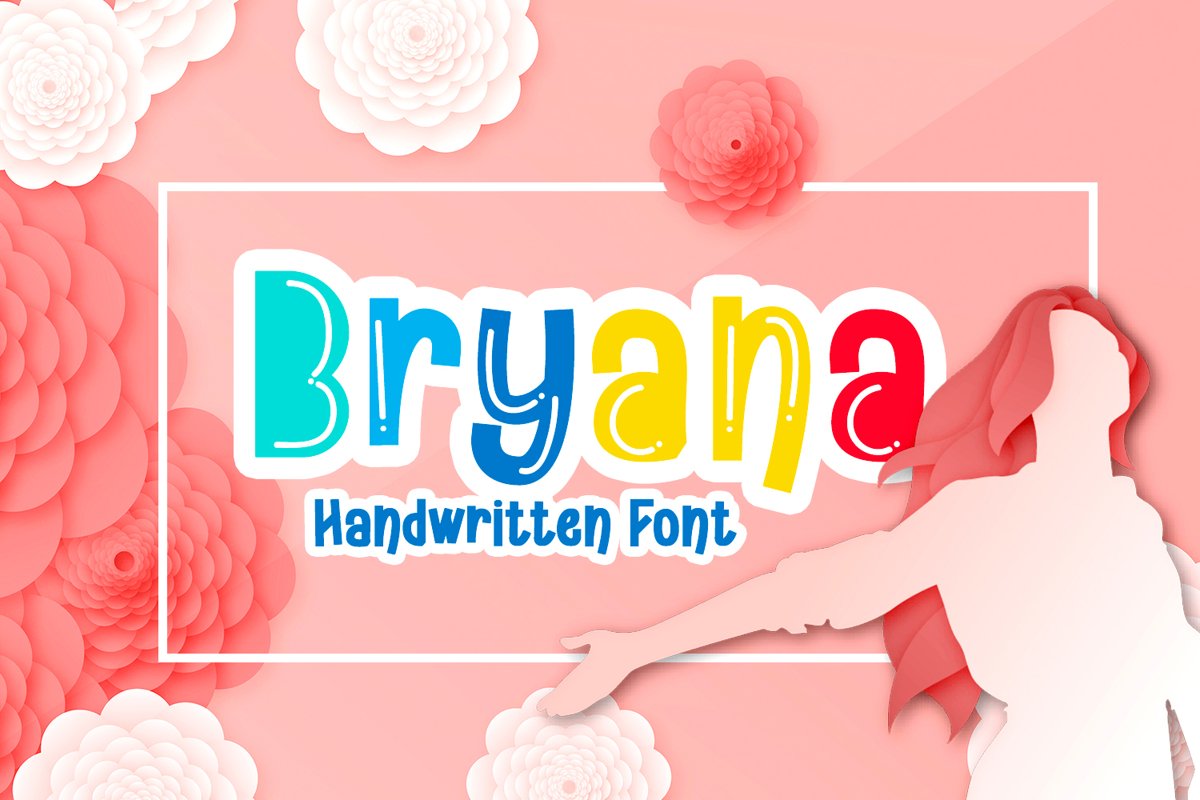
Bryana | Handwritten Font
Bryana  is a modern handwritten font, organic, dynamic and energetic sytle.Can used for various purposes. such as the title, signature, logo, correspondence, wedding invitations, letterhead, signage, labels, newsletters, posters, badges, etc.Files included: